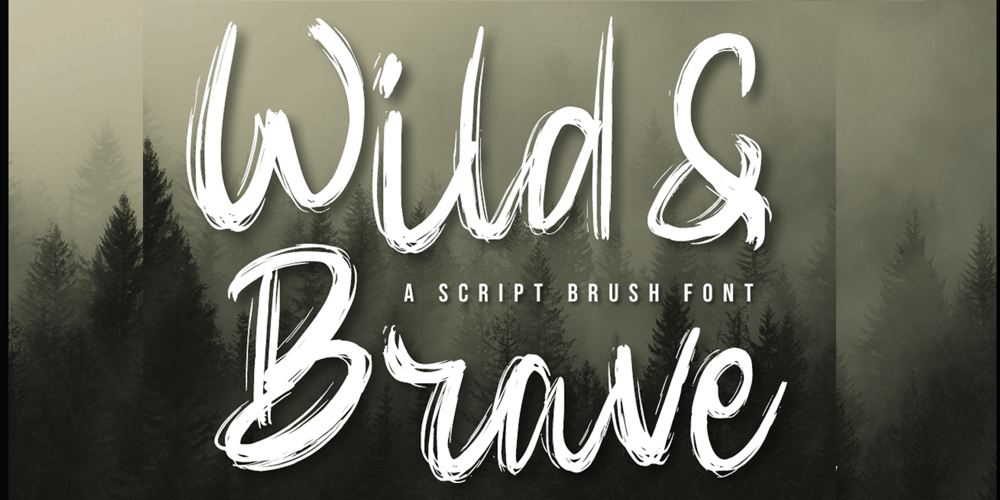
Wild & Brave Font Family was designed by Heri Imanudin and published by Krafted. Wild & Brave contains 1 styles and family package options. do that. Make a statement!This bold brush font is perfect for anything indie, adventurous, and direct. A real head-turner for your presentation, designs, website illustrations, and much more. Enjoy the standard Latin characters along with multilingual character support, as well as numerals and punctuation characters.What you’ll get: Multilingual & Ligature Support Full sets of Punctuation and Numerals Compatible with: Adobe Suite Microsoft Office KeyNote Pages Software Requirements: The fonts that you’ll receive in the pack are widely supported by most software. In order to get the full functionality of the selection of standard ligatures (custom created letters) in the script font, any software that can read OpenType fonts will work. We hope you enjoy this font and that it makes your branding sparkle! Feel free to reach out to us if you’d like more information or if you have any concerns.